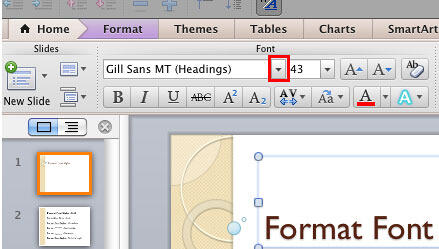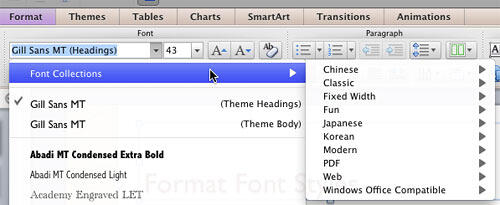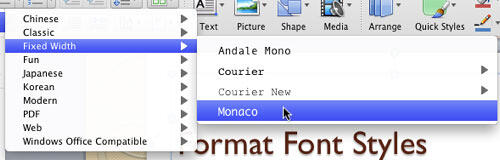
Font Collections in PowerPoint 2011 for Mac
Explore Font Collections in PowerPoint 2011 for Mac. These Font Collections make choosing coordinated fonts easier.
Any font typeface that you use in your presentation should always support the purpose of your presentation. Most of the time, you may be constrained by company corporate policies or visual standards that dictate you use a particular font. Yet at times, you have the freedom to make a choice to change any font. To make the task of selecting the perfect font, PowerPoint 2011 for Mac offers you with the Font Collections option that segregates fonts into various categories. All you have to do is explore a particular category and choose fonts from within that category. Explore more in the following steps:
1. Create a new presentation and type some text in the placeholder, and select it, as shown in Figure 1, below, (you can also select the placeholder instead of text).
2. Text on the slide
Figure 1: Text on the slide
3. Now, navigate to the Home tab of the Ribbon and locate the Font group. Within the Font group, click the downward pointing arrow located next to Font option, as shown highlighted in red within Figure 2.
4. Font group within the Home tab of the Ribbon
Figure 2: Font group within the Home tab of the Ribbon
5. This brings up the Font drop-down gallery. Within the Font drop-down gallery select the Font Collections option, as shown in Figure 3. This opens the Font Collections sub-gallery which includes various categories, as shown in Figure 3.
6. Font Collections option within Font drop-down gallery
Figure 3: Font Collections option within Font drop-down gallery
7. Let us explore the categories within Font Collections sub-gallery:
Chinese, Japanese, and Korean
As the names suggest, these categories include Chinese, Japanese, and Korean language fonts.
Classic
Includes fonts from the classical era of fontography such as Baskerville, Cochin, etc.
Fixed Width
In this category you will find fonts in which all characters have an equal, fixed width. Thus the character "i" uses the same width space as an "m" character. Examples of such fonts are Andale Mono, Courier, etc.
Fun
These include happy looking or jazzy fonts such as Herculanum, Papyrus, Zapfino etc.
Modern
The choices within this category are the opposite of what you would find in the Classic category. Examples of such fonts include Futura, Gill Sans, Optima etc.
PDF
These are fonts most suitable for presentations that you want to eventually save as PDFs. These include Courier, Helvetica, Times etc.
Web
If you are publishing your presentation online, choose any font within this category. Examples include Arial, Georgia, and Verdana.
Windows Office Compatible
Fonts within this category are best selected if you need to share your presentations with users of the Windows versions of PowerPoint (and Microsoft Office). Fonts from this collection include Arial, Calibri, and Century.
8. Select any font based on your requirement. This opens another sub-gallery including all fonts within the selected category. Click on any font of your choice to apply it to the selected text. In Figure 4, you can see the font type Monaco being selected within the Fixed Width category.
9. Font type Monaco being selected within the Fixed Width category
Figure 4: Font type Monaco being selected within the Fixed Width category
10. This applies the new font type to your selected text. Once done, save your presentation.